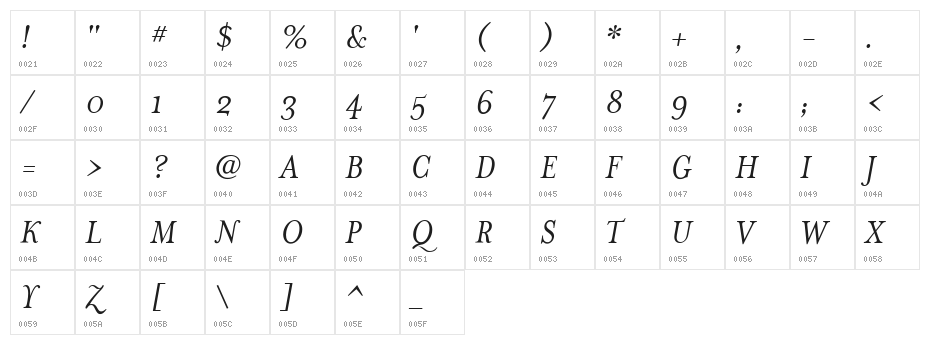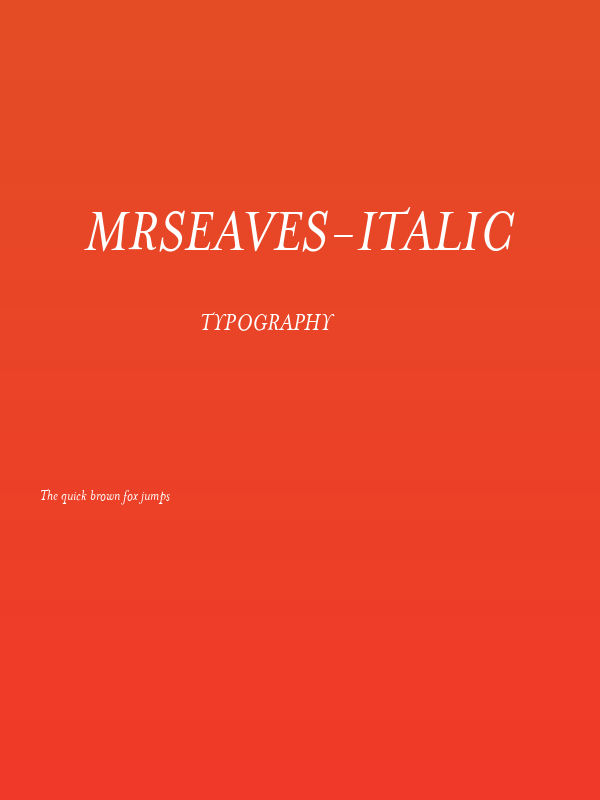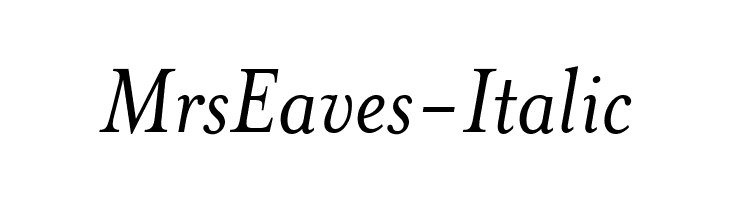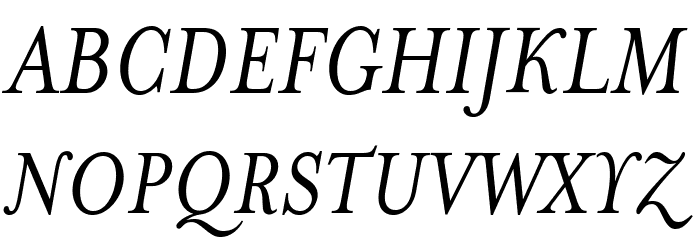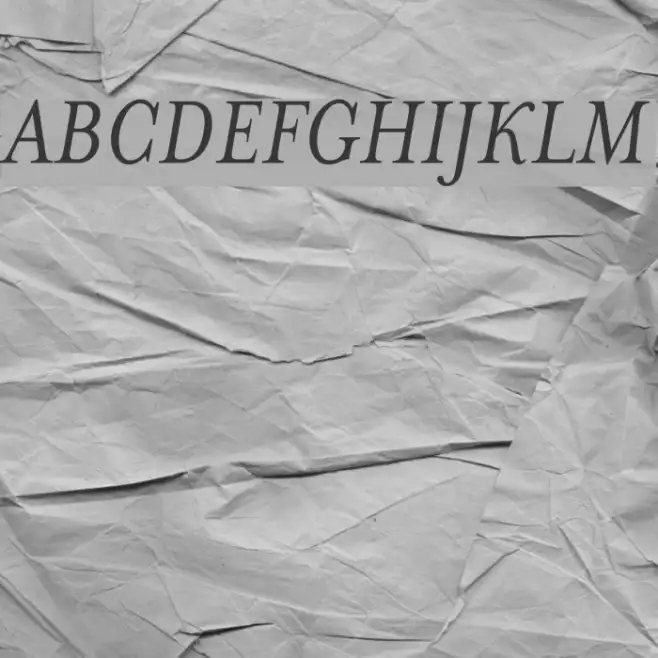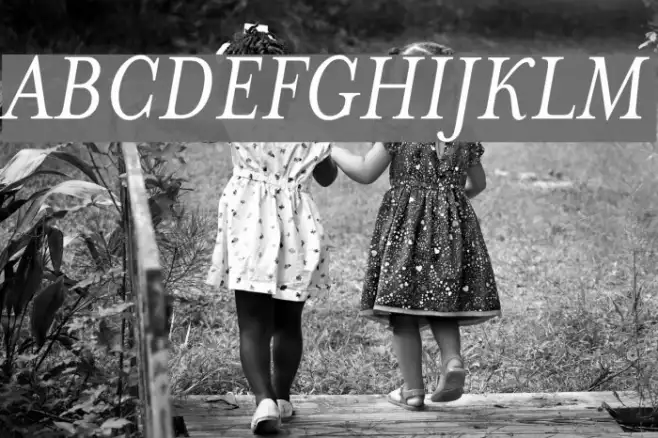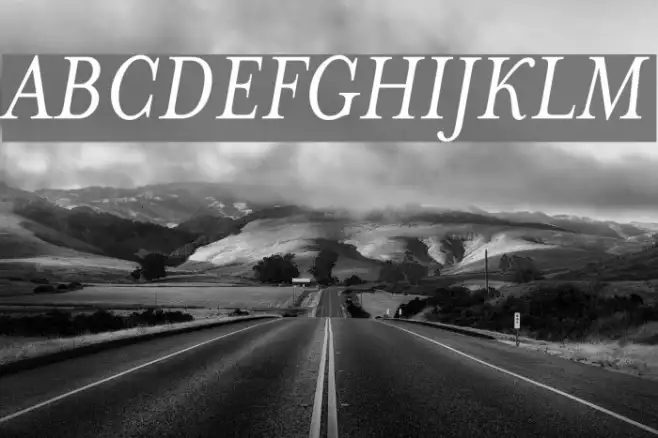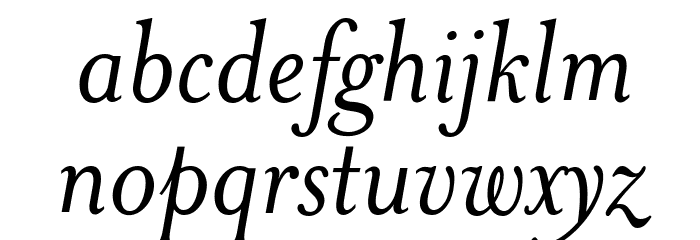
MrsEaves-Italic Font
MrsEaves-Italic Description
This elegant serif font features a classic italic style with a refined and sophisticated appearance. The characters exhibit a graceful slant, enhancing the traditional serif design with a touch of modernity. The strokes are well-defined, with moderate contrast between thick and thin lines, providing a balanced and readable text. The font maintains a timeless aesthetic, suitable for conveying elegance and professionalism. The character spacing is normal, ensuring clarity and legibility across various applications. Its versatility makes it ideal for both digital and print media.
| Overall Style | Classic |
| Use Case | Headlines, Body text, Logos |
| Proposed Projects | Ideal for book covers, formal invitations, branding, and editorial design. |